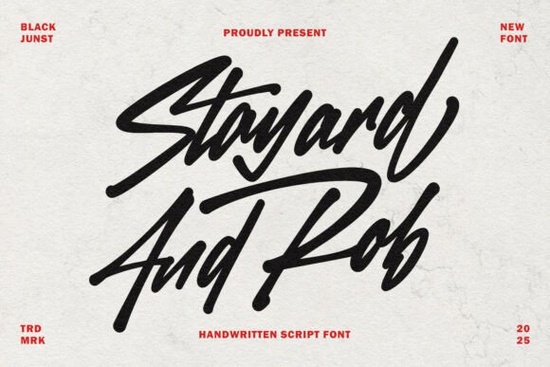
Stayard And Rob is a standout font for anyone looking to add a dynamic, handcrafted feel to their design work. This bold handwritten script blends the raw energy of street-style lettering with the smooth flow of brush pen strokes, making it perfect for a variety of creative projects. Whether you're designing a logo, working on apparel branding, or creating social media content, Stayard And Rob brings a confident and expressive vibe that sets your work apart.
The font features uppercase and lowercase letters, along with alternates and ligatures, giving designers flexibility and control over their typography. It also supports multiple languages, which makes it a great choice for international projects or multilingual content. The natural curves and bold strokes of each character create a look that feels authentic and handcrafted, adding a personal touch to any design.
If you're looking for a font that can bring personality and motion to your work, Stayard And Rob is an excellent option. It’s ideal for logos, posters, quotes, and packaging designs where a strong visual identity is needed. The font’s urban flair and modern edge make it especially popular among designers who want to convey energy and attitude in their creations.
What Makes Stayard And Rob Unique?
One of the key strengths of Stayard And Rob is its ability to balance boldness with fluidity. Unlike some script fonts that can feel too ornate or difficult to read, this one maintains clarity while still delivering a strong visual impact. The combination of street-style influences and brush pen techniques gives it a versatile yet distinctive appearance.
Designers often use this font for expressive typographic compositions, such as headlines or banners that need to grab attention. Its natural look also works well for handwritten signatures, making it a go-to choice for personal or business branding. The font's versatility means it can be used in both digital and print formats without losing its character.
How to Use Stayard And Rob in Your Projects
For logos, Stayard And Rob adds a sense of confidence and movement that can help a brand stand out. When used in apparel branding, it brings a trendy and modern aesthetic that appeals to younger audiences. For social media designs, the font’s energetic style can make posts more eye-catching and engaging.
When working with this font, consider pairing it with simpler typefaces to balance the design. This helps maintain readability while still allowing the script font to shine. It’s also important to test the font at different sizes to ensure it remains legible and retains its unique character across various applications.
If you’re ready to add a bold and expressive touch to your next design, consider trying Stayard And Rob. It’s a powerful tool for anyone looking to bring energy and personality to their typography.
Before finalizing your design, take a moment to review how the font looks in different contexts. Test it with various colors, backgrounds, and layouts to ensure it meets your creative goals. With its versatility and strong visual presence, Stayard And Rob is a valuable addition to any designer’s toolkit.